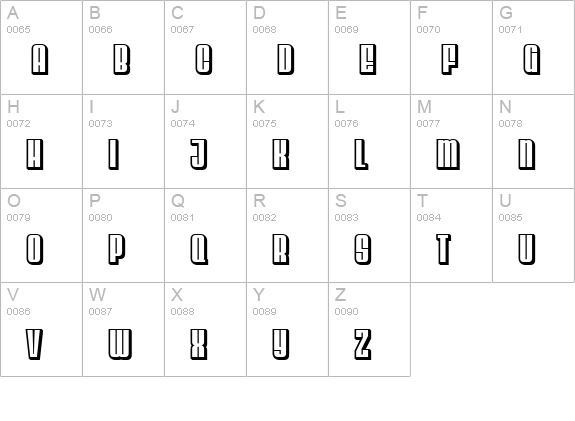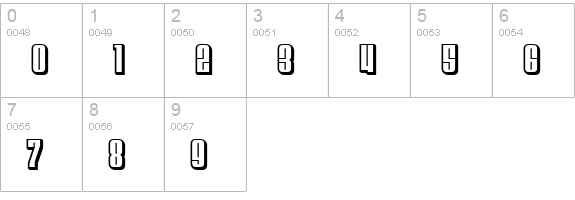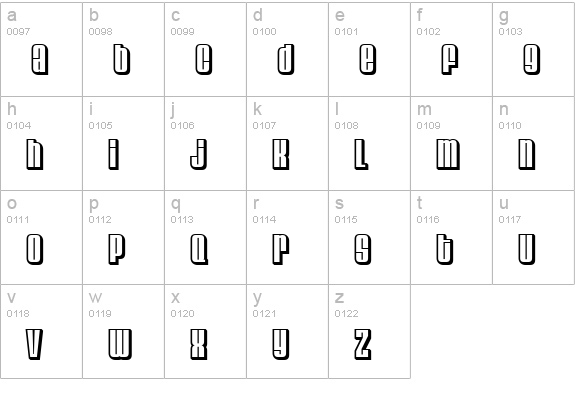
Velvenda Chill Font Details
Velvenda Chill font is a beautifully crafted typeface that exudes elegance and sophistication. Its sleek lines and stylish curves make it perfect for a wide range of design projects, from invitations to branding materials. The font's unique character adds a touch of class and modernity to any layout, making it a versatile choice for both print and digital design. The best part about Velvenda Chill font is that it is available for free download at FontsMarket.com. This means that you can easily access this stunning typeface without any cost, allowing you to effortlessly enhance your projects with its timeless appeal. Whether you're a professional designer or a hobbyist looking to elevate your creations, Velvenda Chill font is sure to impress with its refined aesthetic and effortless charm. Download it today and discover the endless possibilities this font has to offer.